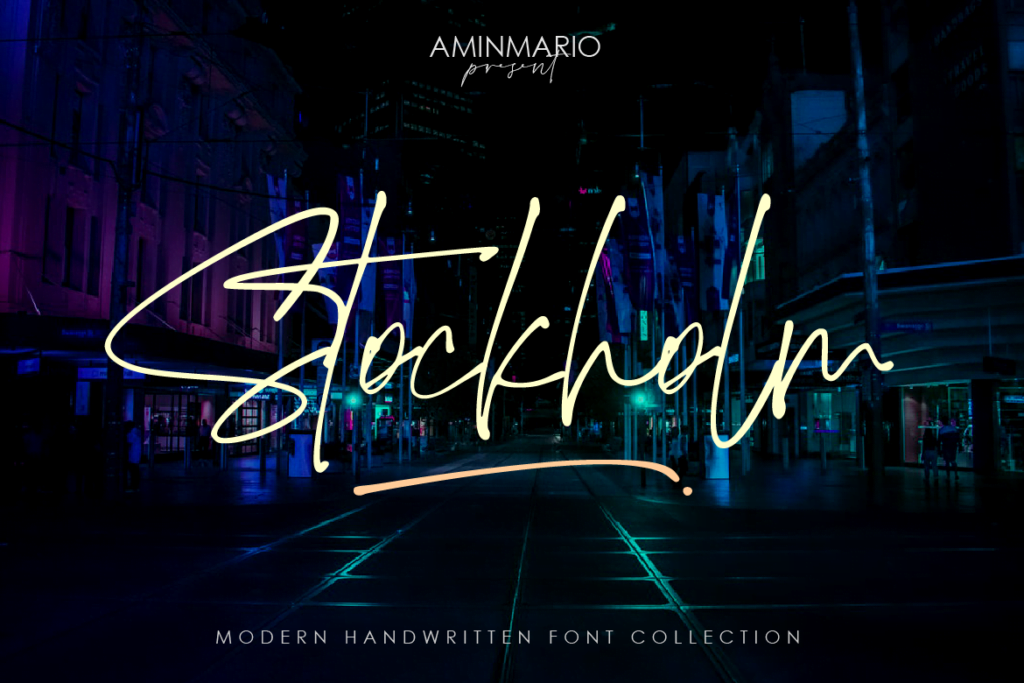
Stockholm Font
Stockholm feels equally charming and elegant. It looks stunning on wedding invitations, thank you cards, quotes, greeting cards, logos, business cards and every other design which needs a handwritten touch. This font is PUA encoded which means you can access all of the glyphs and swashes with ease!
Stockholm Modern Handwritten Font